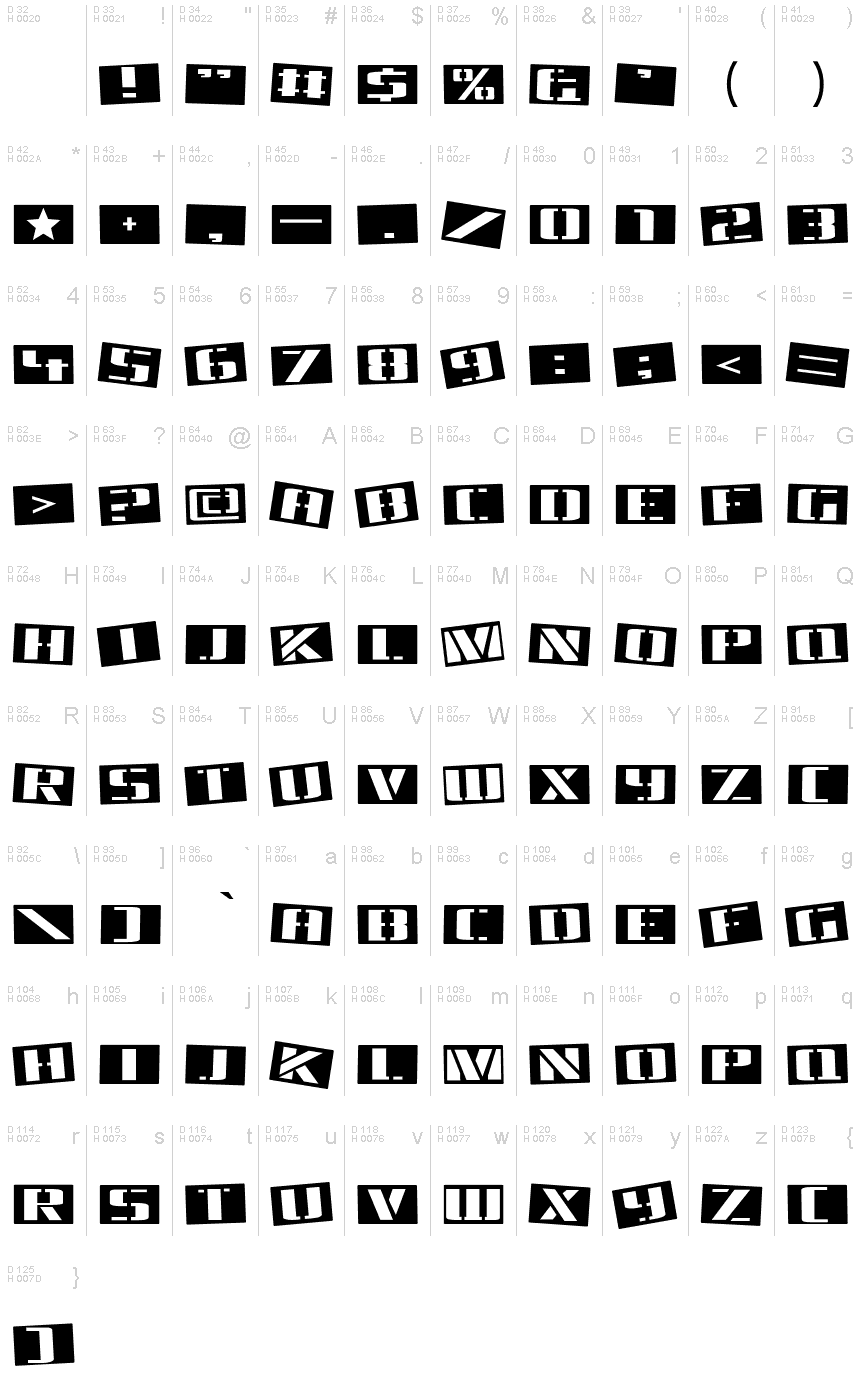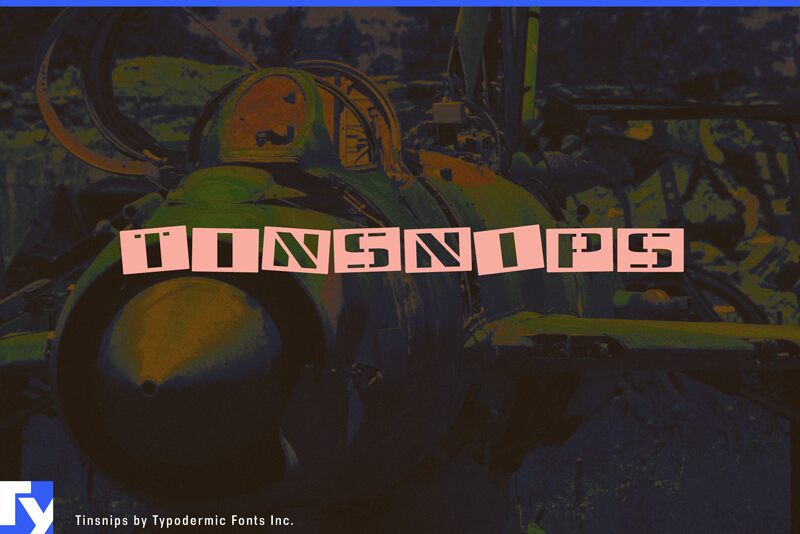
Tinsnips-Regular
Tinsnips, a robust creation by font designer Ray Larabie, stands out with its military-inspired aesthetics and bold negative styling. Crafted to command attention, this display font boasts an expanded width and imposing weight, making it an unmissable addition to any design arsenal. With its authoritative presence, Tinsnips is tailor-made for projects that require a touch of strength and precision.
Embodying the efficiency of Typodermic Fonts Inc., this typeface exudes a utilitarian charm that's both versatile and visually striking. Whether for branding, poster design, or thematic titles that need to evoke power and resilience, Tinsnips delivers with unwavering impact. Dive into the world of Tinsnips where each character carries the echo of a tactical mission executed with typographic finesse.
Ray Larabie